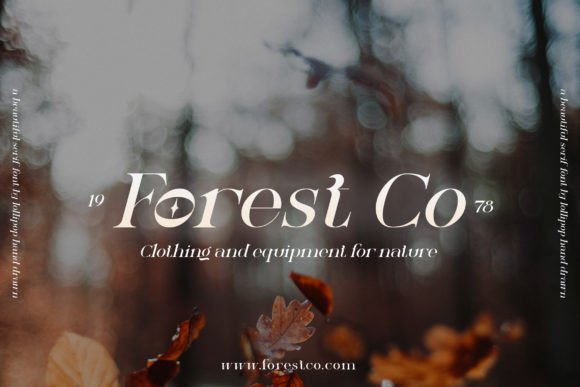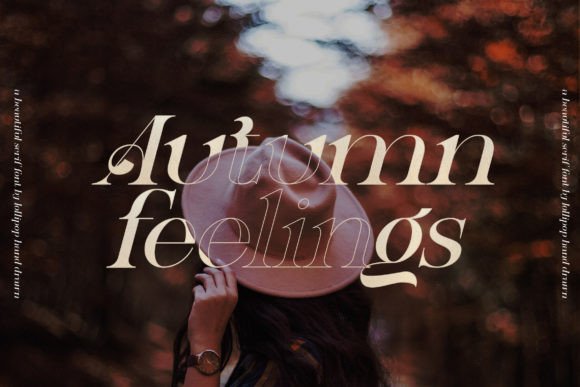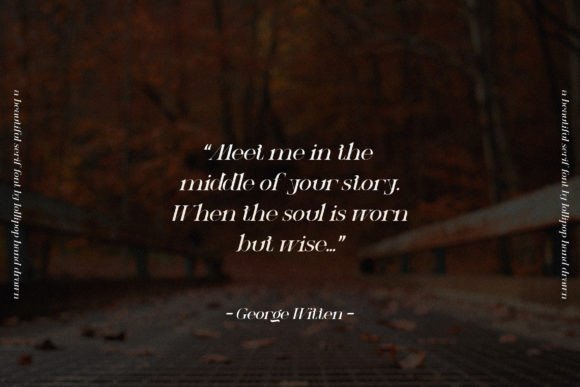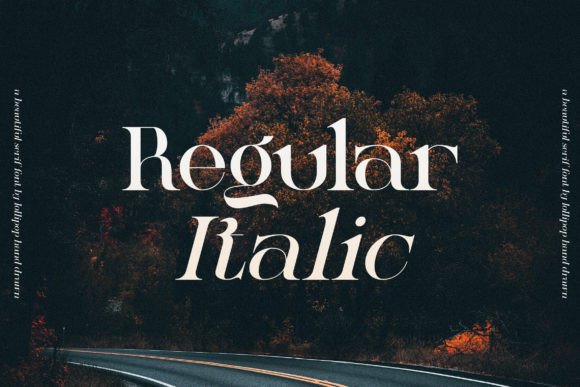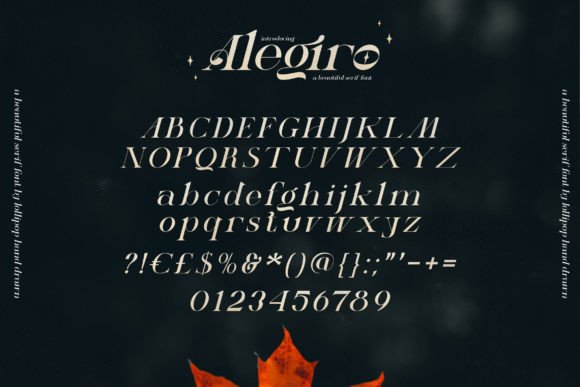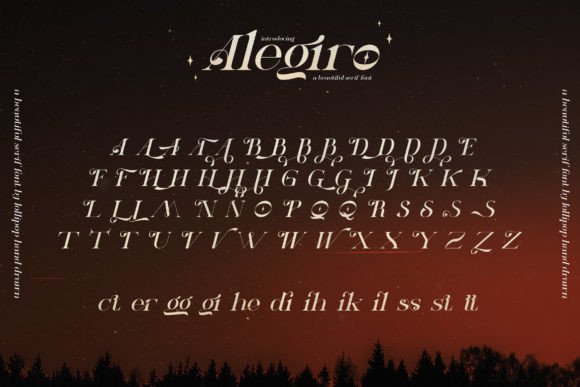
Introduction to Alegiro Font
Alegiro is a modern and exquisite serif font with an impeccable style.
Clean and beautifully rounded, this font is sure to take any of your creative designs to the highest levels This font is PUA encoded, which means you can access all of the glyphs and swashes with ease.
Key Features of Alegiro Font